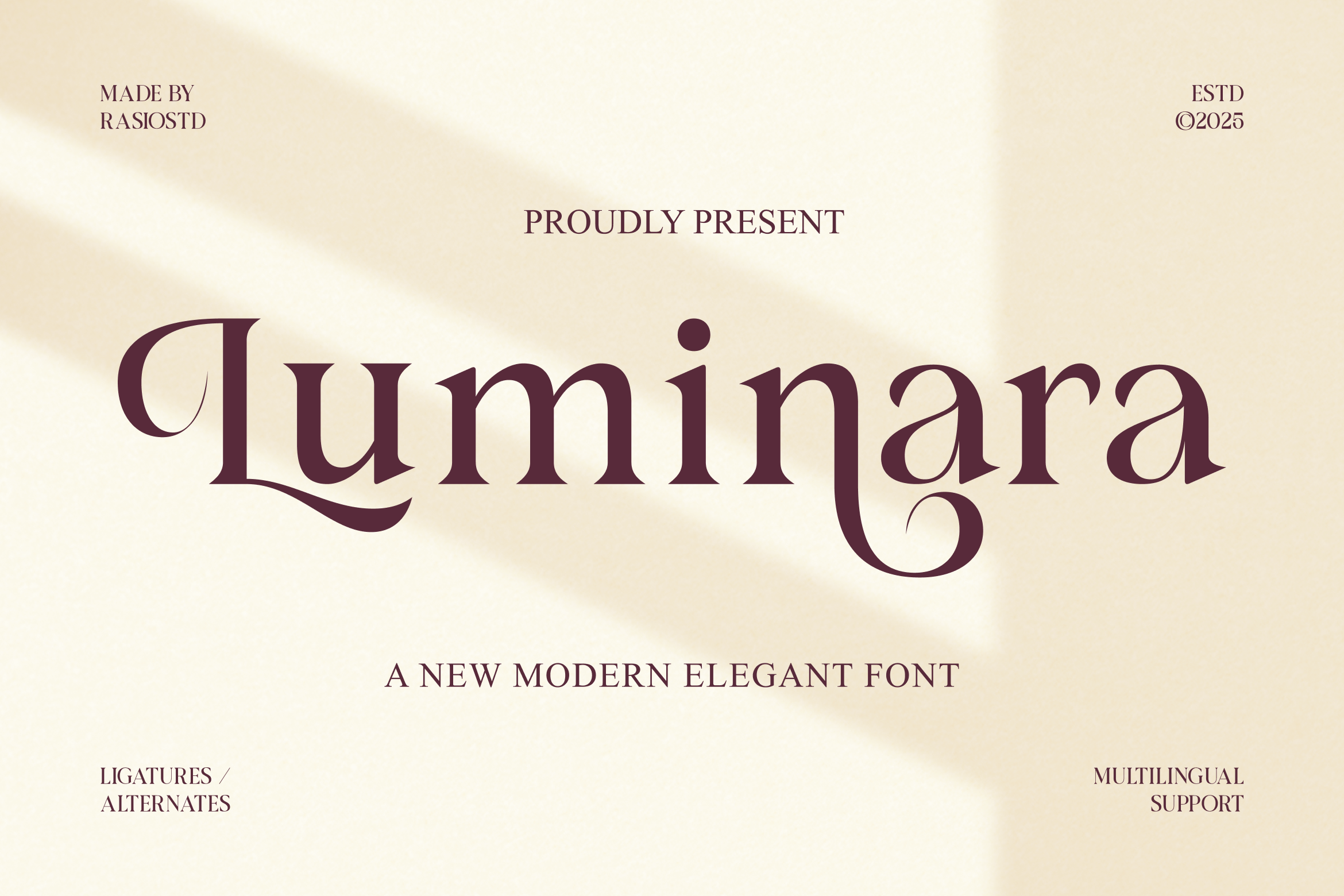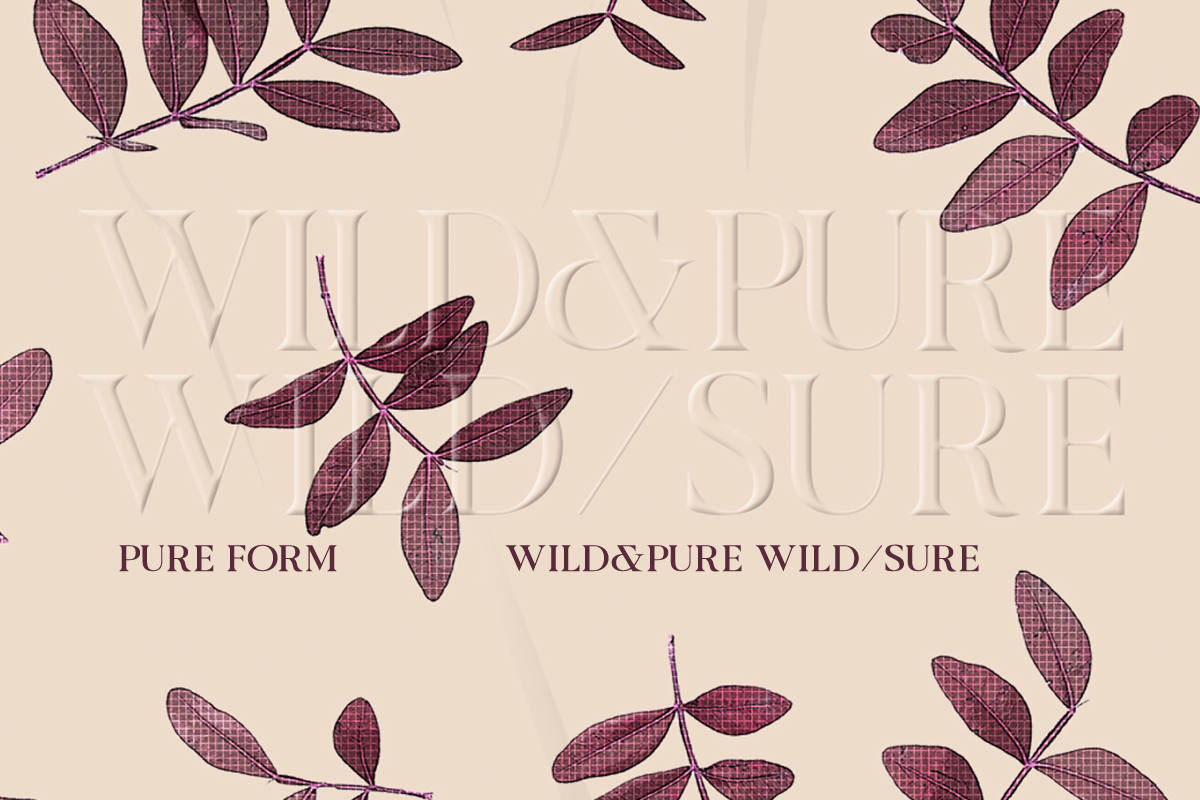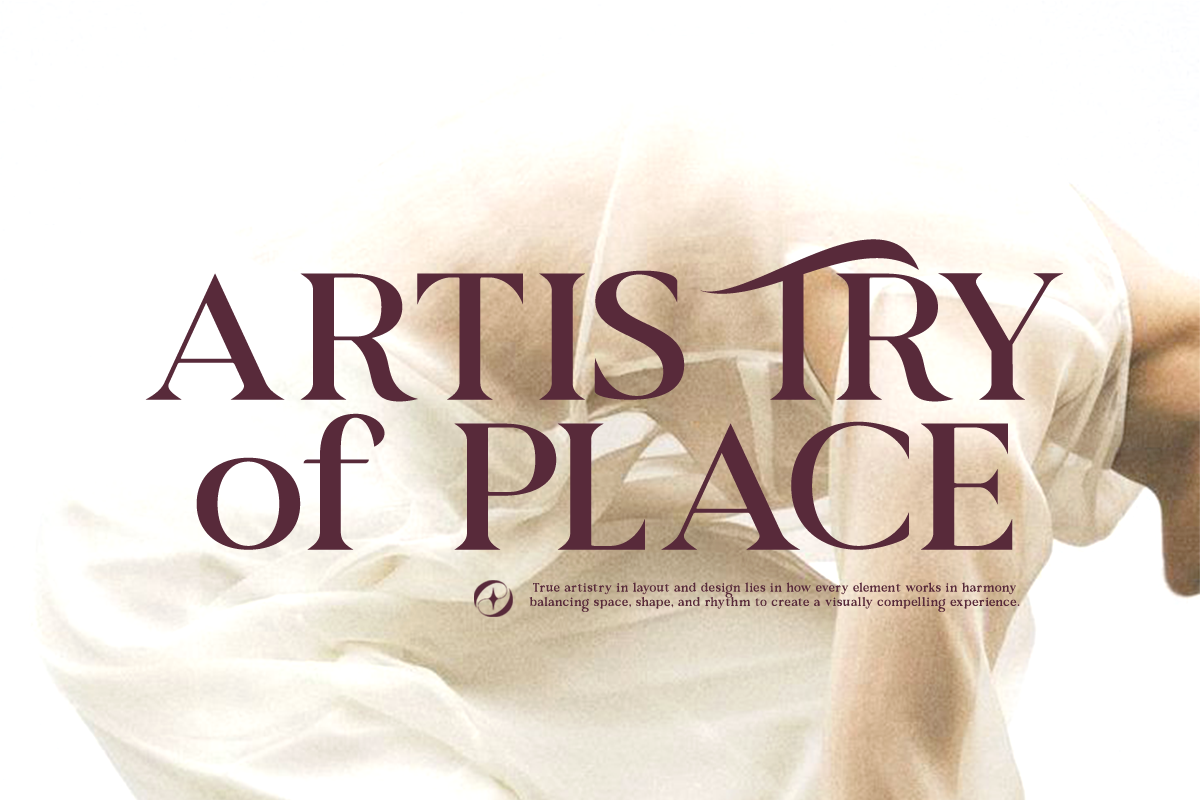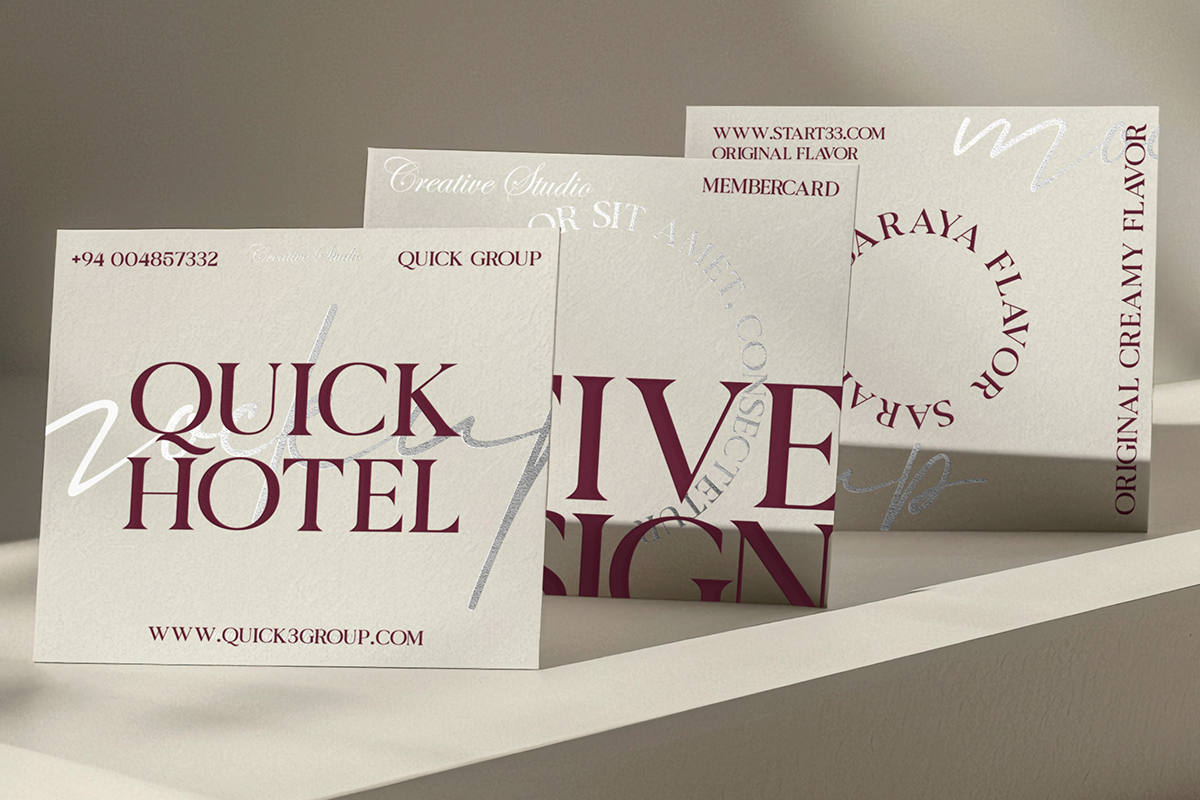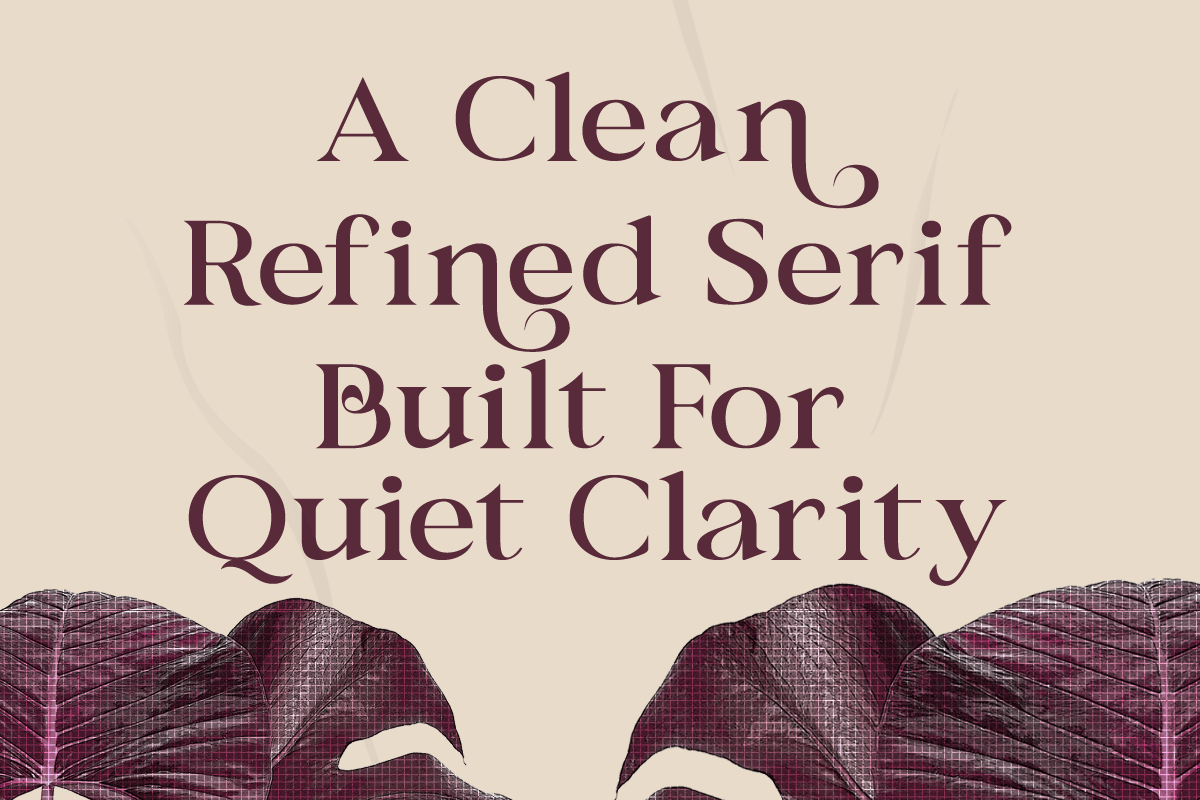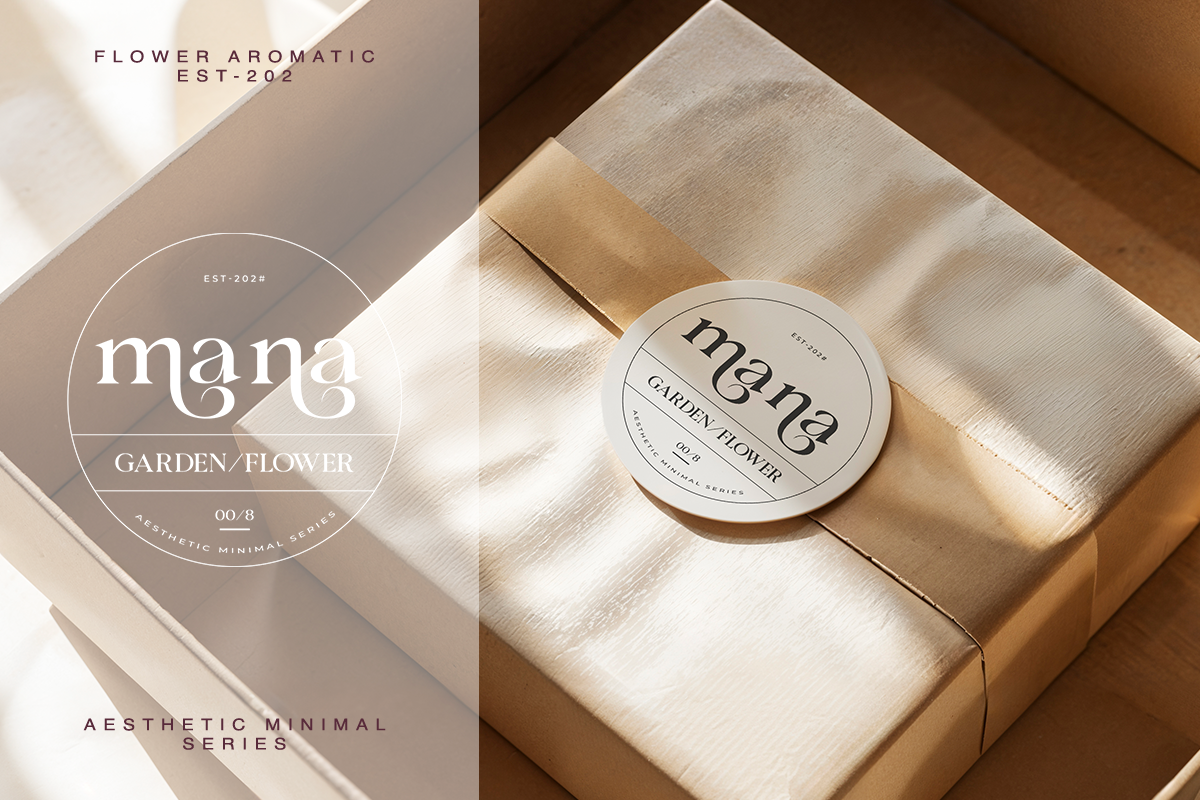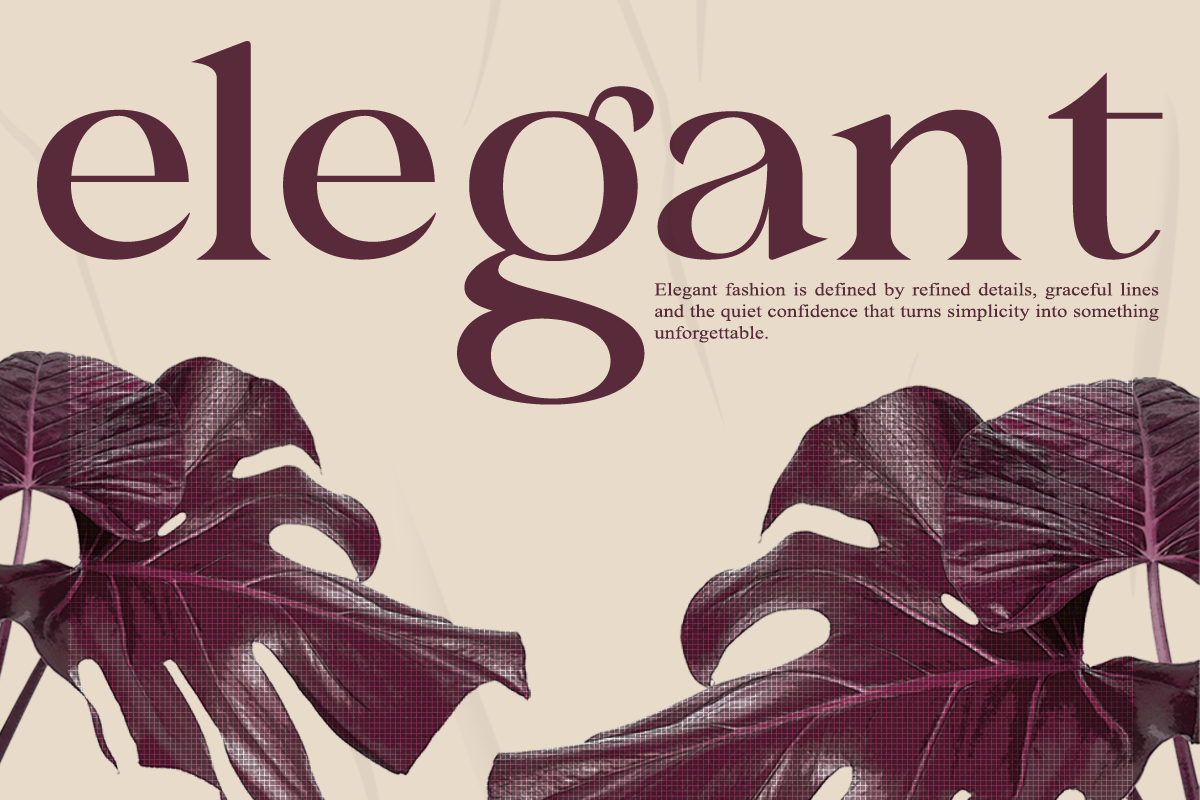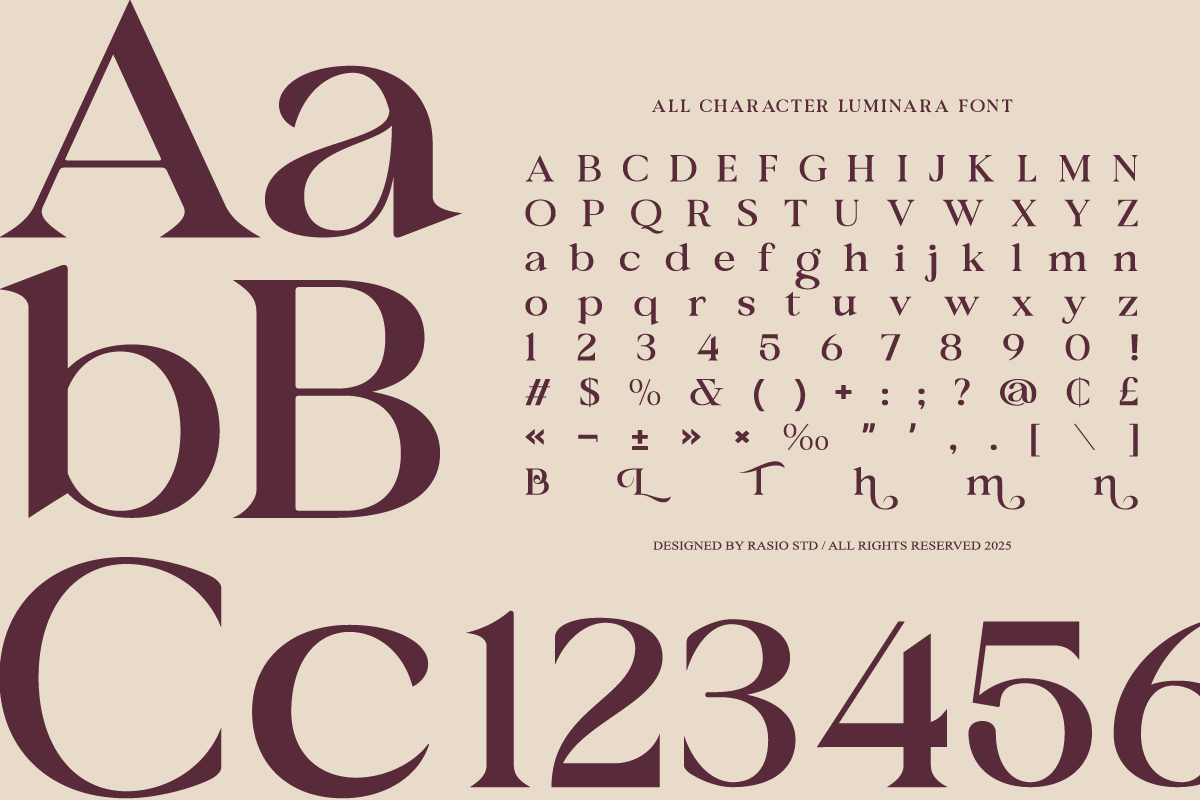
Luminara Modern Elegant Font
Luminara is an elegant modern serif font designed with refined curves, high-contrast strokes, and luxurious decorative details. Its balanced proportions and graceful serif structure bring a classic yet contemporary feel, making it ideal for high-end branding and editorial aesthetics. The character set includes uppercase, lowercase, numerals, punctuation, and extended glyph variants that enhance visual sophistication. With strong legibility and stylish form, Luminara elevates logos, headlines, and premium printed compositions with timeless elegance.
Relevance and Use Cases is perfect for luxury branding, magazine layouts, product packaging, beauty campaigns, wedding stationery, logo titles, high-end fashion visuals, book covers, editorial headlines, and premium promotional materials requiring a refined serif aesthetic.
- Elegant modern serif structure with refined high-contrast strokes
- Graceful curves and soft serif details that enhance a luxurious aesthetic
- Distinctive letterforms with subtle stylistic alternates and ligature characters
- Balanced proportions with smooth transitions between thick and thin strokes
- Carefully crafted spacing for sophisticated display typography, editorial layouts
- Luxury brand identity systems for fashion, beauty, and lifestyle brands
- Editorial magazines, book covers, and sophisticated publishing layouts
- Elegant logo design and high-end branding presentations
- Product packaging for cosmetics, perfume, jewelry, and boutique goods
- Wedding invitations, event stationery, and refined print materials
- Social media visuals and marketing graphics with a classic elegant tone